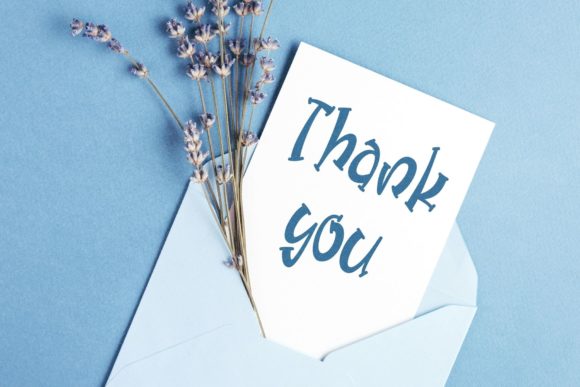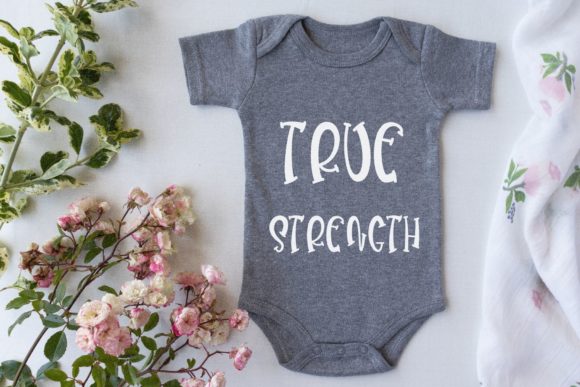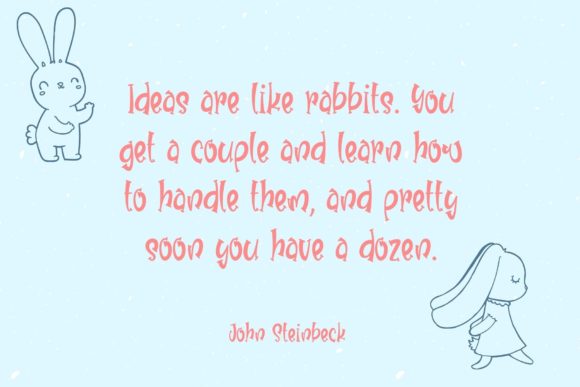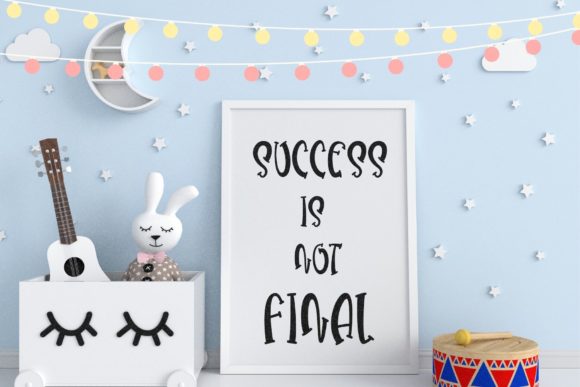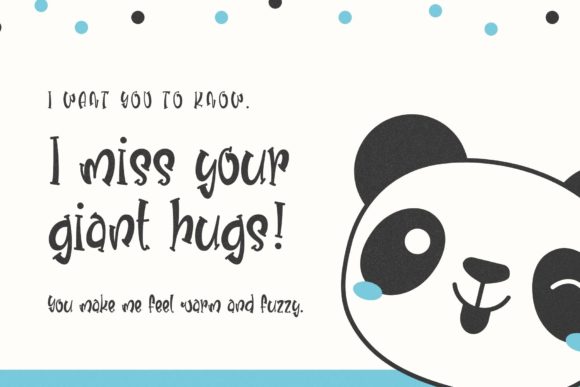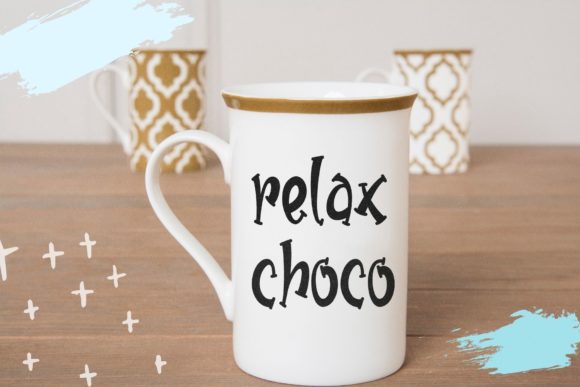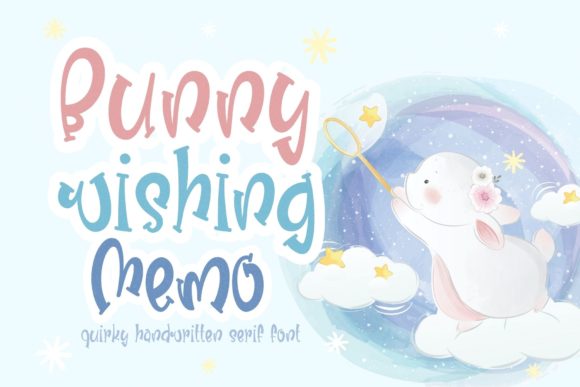
Bunny Wishing Memo Font: The Ultimate Choice for Cute and Quirky Designs
Are you a designer or crafter looking for a font that can add a touch of friendliness and playfulness to your projects? Look no further than the Bunny Wishing Memo Font! This adorable display font is perfect for a wide range of design projects, from headings and blogs to branding, quotes, and more.
What Makes Bunny Wishing Memo Font So Special?
Bunny Wishing Memo Font is a cute and quirky display font that is sure to capture the attention of your audience. Its friendly feel makes it versatile and suitable for various design projects, including children’s designs, t-shirts, mugs, posters, and more. Whether you’re working on a wedding design, a craft project, or a logo, this font is sure to make your creative ideas come alive.
Key Features of Bunny Wishing Memo Font
- Cute and Quirky Design: The Bunny Wishing Memo Font features a unique and playful design that is sure to add a touch of whimsy to your projects.
- Versatile: This font is perfect for a wide range of design projects, from headings and blogs to branding, quotes, and more.
- Friendliness: The friendly feel of this font makes it suitable for children’s designs, t-shirts, mugs, posters, and more.
- Easy to Read: The clear and legible design of this font ensures that your message is conveyed effectively.
Uses of Bunny Wishing Memo Font
The Bunny Wishing Memo Font is perfect for a variety of design projects, including:
- Children’s Designs: Create adorable children’s books, posters, and crafts with this font.
- T-Shirts and Mugs: Add a touch of playfulness to your apparel and accessory designs with this font.
- Posters and Flyers: Create eye-catching posters and flyers for events, promotions, and more.
- Wedding Designs: Use this font to create beautiful wedding invitations, decorations, and more.
- Branding and Logos: Create a unique and memorable brand identity with this font.
Why Choose Bunny Wishing Memo Font?
There are many reasons why you should choose the Bunny Wishing Memo Font for your design projects. Here are a few:
- Unique Design: This font features a unique and playful design that is sure to stand out.
- High-Quality: This font is of high quality, ensuring that your designs look professional and polished.
The Bunny Wishing Memo Font is a versatile and adorable display font that is perfect for a wide range of design projects. Its friendly feel and playful design make it suitable for children’s designs, t-shirts, mugs, posters, and more. With its ease of use and high-quality design, this font is sure to become a favorite among designers and crafters. So why wait? Download the Bunny Wishing Memo Font today and start creating your own unique and memorable designs!